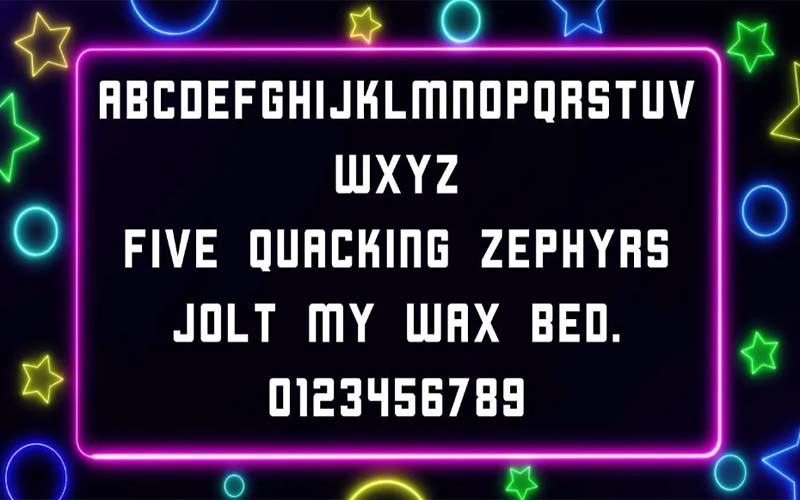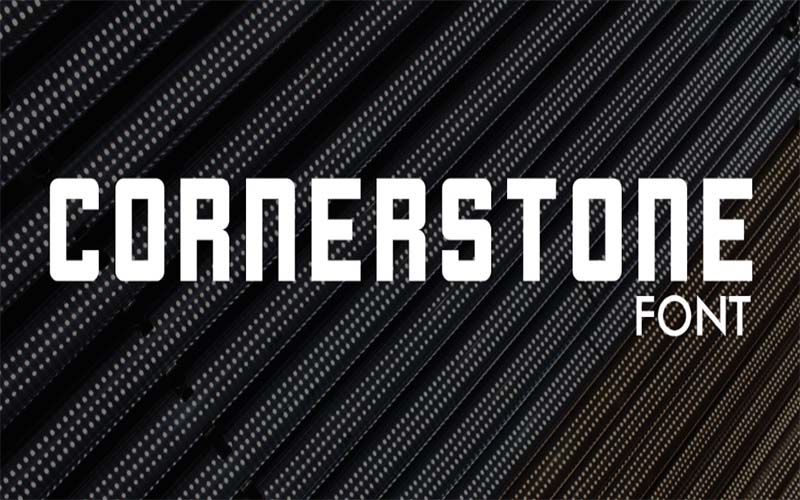
Cornerstone Font is a bold display font that comes with the fantastic no-nonsense modular font. If you are looking for a font that takes itself very seriously, you will love Cornerstone.
This industrial yet vintage font comes in a single regular weight with Truetype features. A US-based font designer Zac Freeland took charge of designing it and published it for the first time in 2015.
The designer has added a touch to some corners where the curve appears in each letter. cubic sans serif corners are prominent in the closing corners.
Its width is of standard size while its width is extra large. That is why it feels unique. So, now this retro font has become the best choice for creating unique designs.
Further, it helps create small to medium-sized designs. But it can also be used for large fonts only in the case of font pairs. That way, you can find it perfect in every way.
This font is perfect for banner ads, social media posters, movie posters, game graphics, game titling, print-on fabrics, product packaging, unique emblems, product designs, fashion magazines, shopping bags, and much more.